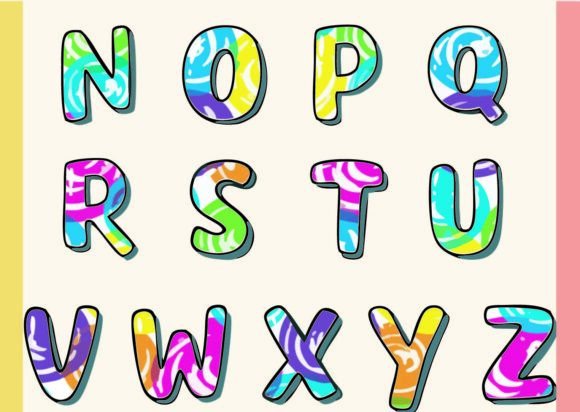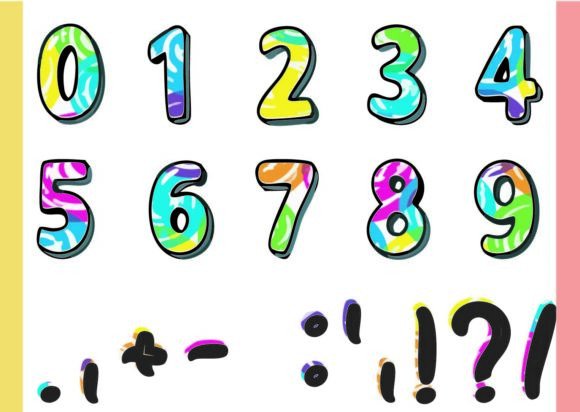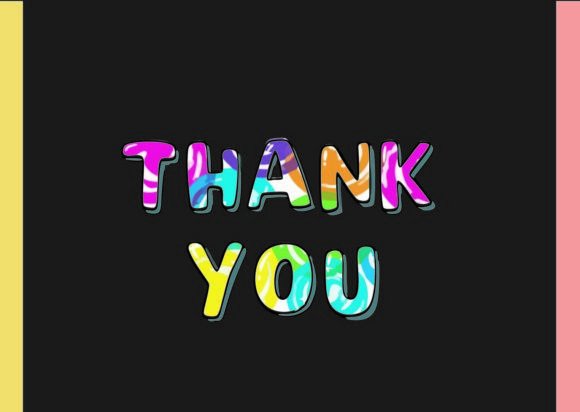
Unlocking a World of Colorful Creativity
Have you ever found yourself lost in the intricate details of a design, mesmerized by the dance of shapes and colors? For many creatives, those “aha” moments are what drive us to push the boundaries of innovation. For us, that moment came when we stumbled upon the Celeste Font – a game-changing tool that has been transforming the world of typography.
Celeste Font is more than just a font; it’s a vibrant, dynamic canvas waiting to be explored. With every glyph boasting a unique set of colors, designers can now create stunning, hand-painted effects with ease. Whether you’re a seasoned pro or just starting out, Celeste Font offers a world of creative possibilities that will take your designs to the next level.
By incorporating Celeste Font into your workflow, you’ll be able to unlock new levels of color and texture in your work, setting yourself apart from the competition and pushing the boundaries of what’s possible in design.
Celeste Font Key Features
- Font Family: Celeste is a sans-serif font family designed for digital use. It comes in multiple weights, from Light to Bold.
- Unique Characteristics: Celeste Font features a distinctive, modern design with clean lines and a highly legible character set, making it ideal for digital interfaces and user-friendly designs.
Celeste Font Review
I recently had the chance to work with the Celeste font, and I have to say it’s a mixed bag. Here’s my honest take.
- Unique aesthetic: Celeste has a distinct, elegant feel that sets it apart from more common fonts. Its rounded edges and subtle flair make it perfect for projects that need a touch of sophistication.
- Legibility: Despite its ornate appearance, Celeste is surprisingly easy to read, even at smaller font sizes.
- Font pairing potential: Celeste pairs well with a variety of fonts, from clean sans-serifs to bold script fonts.
- Limited font weights: Celeste is available in only a few weights, which may limit its use in projects that require a range of font weights.
- Not ideal for body text: While Celeste is great for headings and titles, it may not be the best choice for large blocks of body text due to its ornate nature.
- May not work well in small sizes: Celeste’s intricate details can become lost at very small font sizes, making it less suitable for projects that require tiny text.
Overall, I think Celeste is a solid choice for projects that need a touch of elegance and sophistication. While it may have some limitations, its unique aesthetic and legibility make it a great option for headings, titles, and other display text. Just be mindful of its limitations, and you’ll be golden.
Celeste Font is perfect for:
- Creating elegant headings and titles.
- Designing sophisticated logos and branding materials.
- Adding a touch of luxury to your typography.